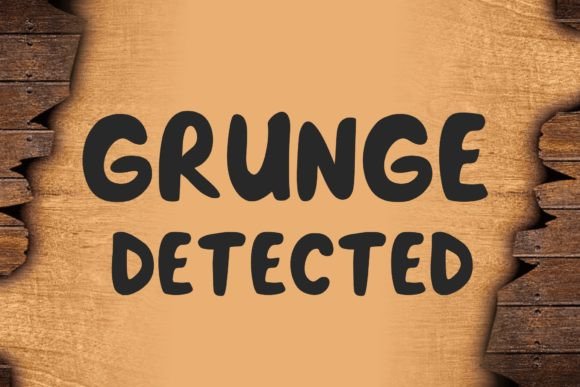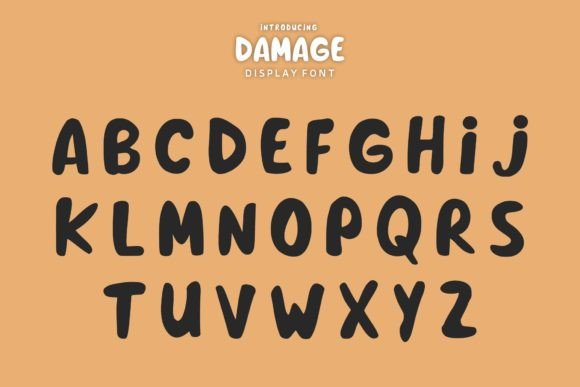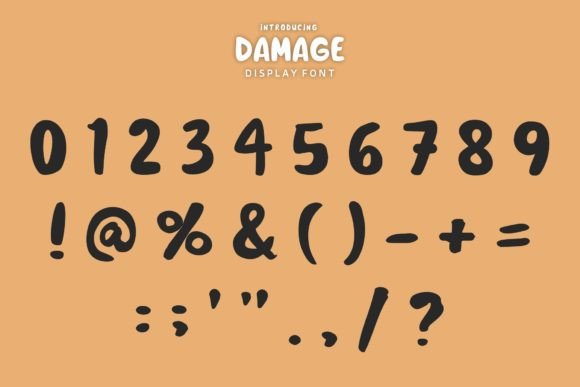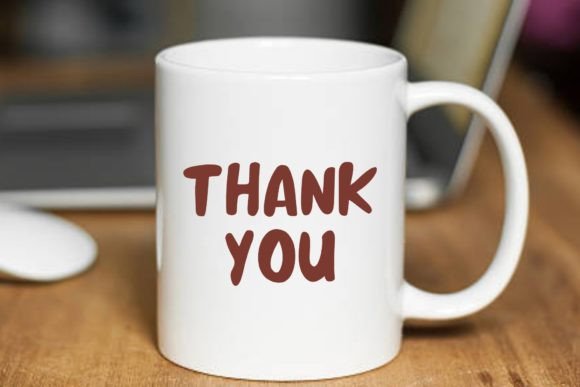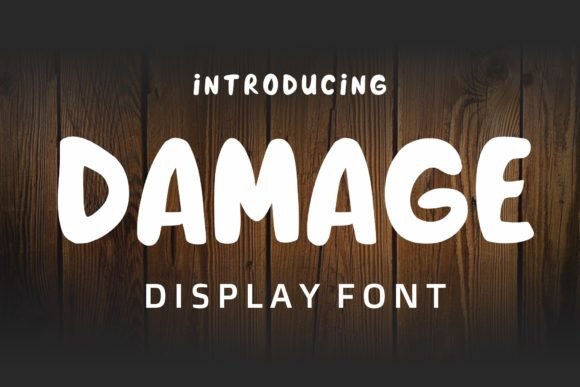
Introducing Damage Font: The Bold and Whimsical Typeface to Elevate Your Designs
Are you tired of using the same old fonts in your designs? Look no further than Damage Font, a bold and abstract typeface that’s sure to add a touch of whimsy to your projects. With its unique and eye-catching style, Damage Font is the perfect choice for designers and crafters looking to make a statement.
The Characteristics of Damage Font
Damage Font is a bold and abstract font that’s unlike anything you’ve seen before. Its weird and slightly whimsical style is sure to brighten up any design, making it perfect for projects that need a bit of personality. The font’s abstract nature gives it a unique and artistic feel, making it ideal for use in a variety of design applications.
Why Choose Damage Font?
So why choose Damage Font for your next project? Here are just a few reasons why this font stands out from the rest:
- Unique Style: Damage Font has a one-of-a-kind style that’s sure to set your designs apart from the crowd.
- Bold and Eye-Catching: This font is bold and eye-catching, making it perfect for headlines, titles, and other design elements that need to make a statement.
- Whimsical and Artistic: Damage Font has a whimsical and artistic feel that’s perfect for designers and crafters who want to add a bit of personality to their projects.
- Versatile: This font can be used in a variety of design applications, from print to digital and everything in between.
How to Use Damage Font in Your Designs
Using Damage Font in your designs is easy. Here are a few tips to get you started:
- Pair it with a Simple Font: Damage Font is bold and eye-catching, so it’s best paired with a simple font that won’t compete with it.
- Use it for Headlines and Titles: This font is perfect for headlines and titles, where its bold and eye-catching style can really shine.
- Experiment with Colors: Damage Font looks great in a variety of colors, so don’t be afraid to experiment and find the perfect hue for your design.
Who is Damage Font for?
Damage Font is perfect for designers and crafters who want to add a bit of personality to their projects. Here are a few examples of who might find this font useful:
- Graphic Designers: Graphic designers who want to create bold and eye-catching designs will love Damage Font.
- Crafters: Crafters who want to add a bit of whimsy to their projects will find Damage Font to be a great choice.
- Digital Designers: Digital designers who want to create unique and artistic digital designs will appreciate Damage Font’s bold and abstract style.
In conclusion, Damage Font is a bold and abstract font that’s sure to elevate your designs. With its unique and eye-catching style, this font is perfect for designers and crafters who want to add a bit of personality to their projects. Whether you’re a graphic designer, crafter, or digital designer, Damage Font is a great choice for anyone looking to make a statement.